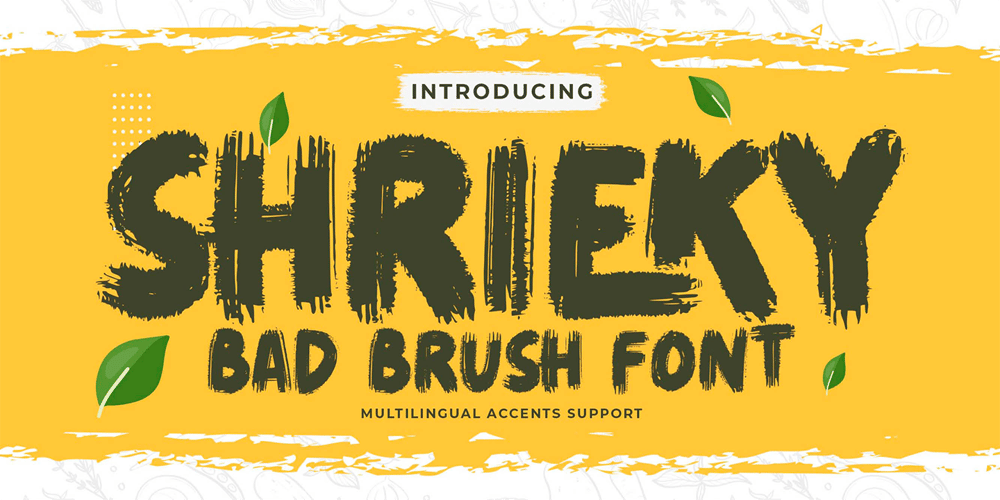
Shrieky Font Family was designed by Abdul Malik Wisnu, Anang Fibriyanto and published by Gassstype. Shrieky contains 1 styles and family package options. Hello Everyone, introduce our new product font SHRIEKY is a Bad Brush Font.This is a Textured Natural Style and classy style with a clear style and dramatic movement.This font SHRIEKY is great for your next creative project such as logos, printed quotes, invitations, cards, product packaging, headers, Logotype, Letterhead, Poster, Design this font is great for your creative projects such as watermark on photography, and perfect for logos & branding, This font is PUA encoded which means you can access all of 16 Ligatures glyphs.